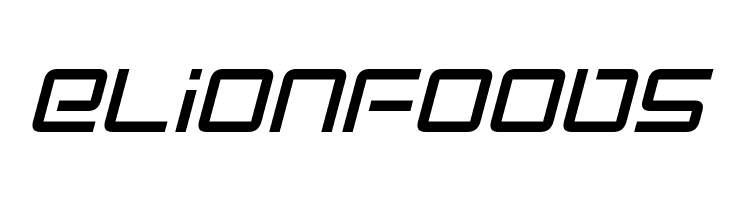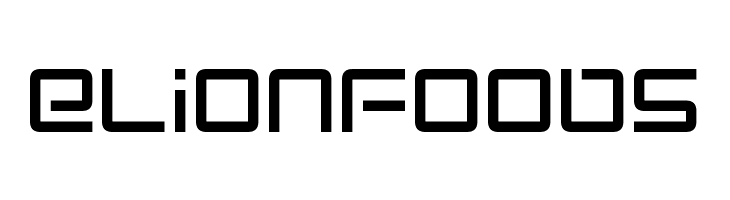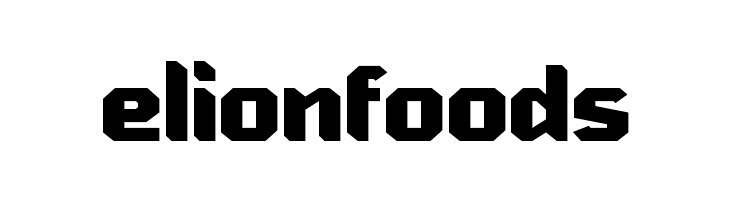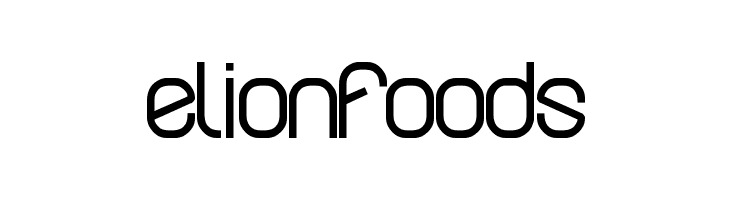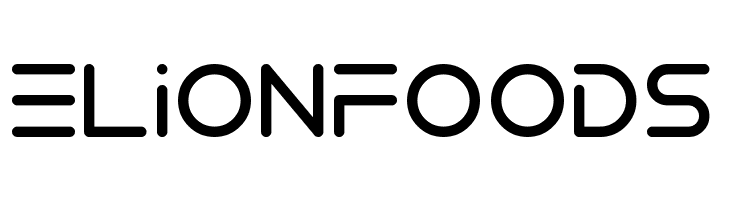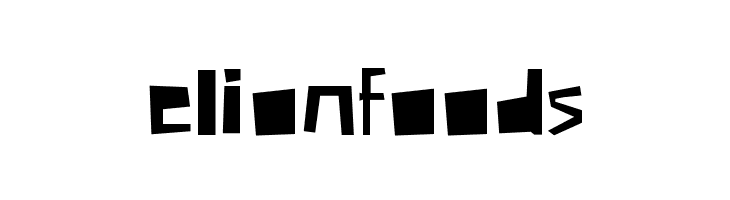
A modern, geometric font with clean lines and a futuristic feel.
A bold, angular font with electrifying motifs and a modern, edgy style.
A bold, geometric font with a futuristic and industrial design.
A futuristic, geometric font with sharp angles and clean lines.
A bold, futuristic font with angular, geometric shapes and a mechanical feel.
A futuristic, geometric font with consistent stroke width and angular design.
A sleek, futuristic italic font with geometric lines and a dynamic style.
A futuristic, geometric font with rounded edges and consistent stroke width.
A modern, geometric font with clean lines and a futuristic style.